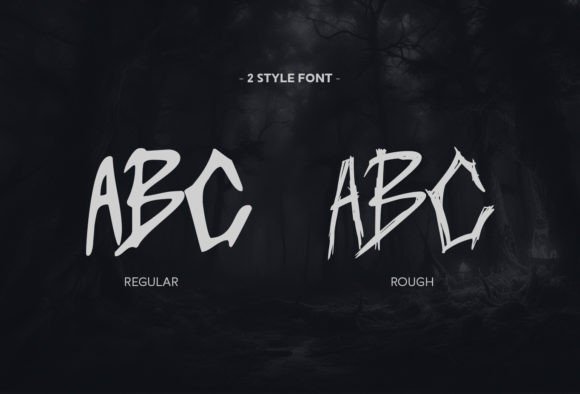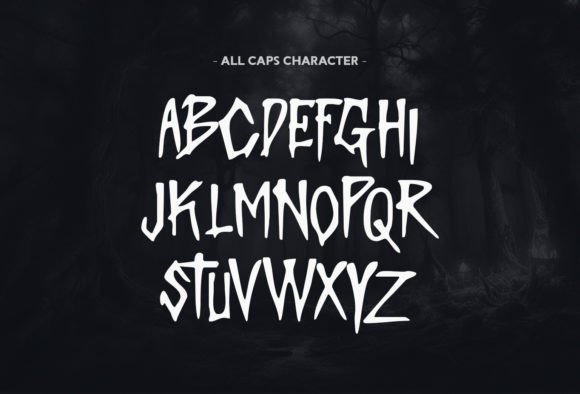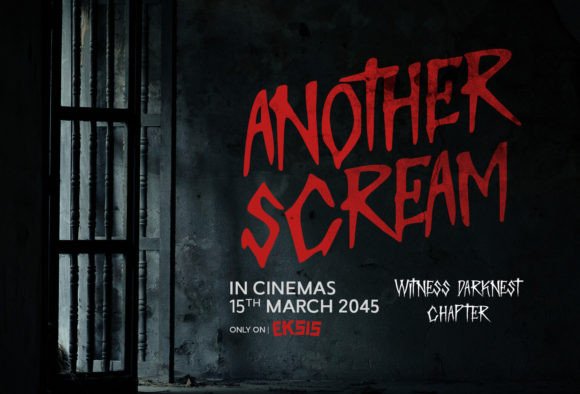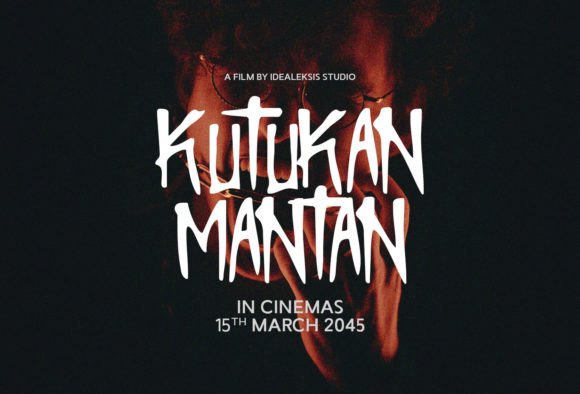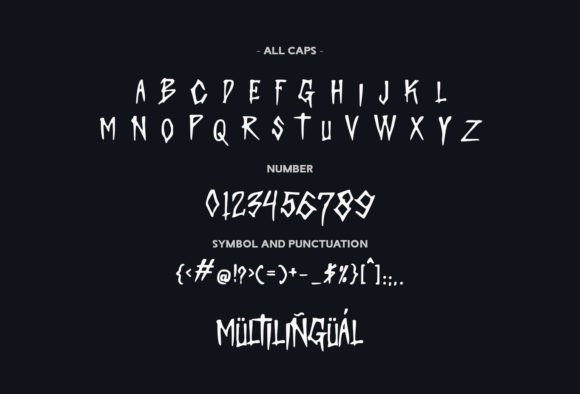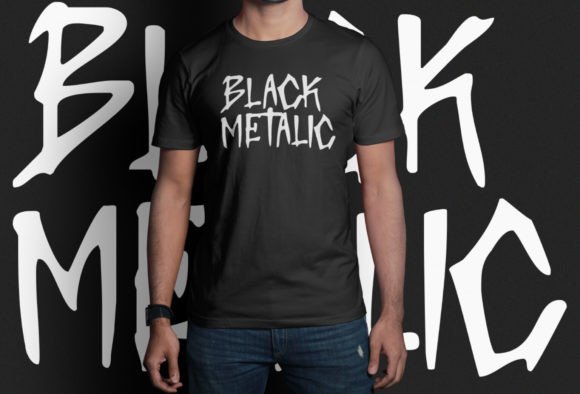
Crack Danger Font: Unleashing the Horror in Typography
In the realm of typography, few fonts manage to evoke the same level of fear and unease as the Crack Danger font. As the name suggests, this chilling typeface embodies an essence of horror and suspense in its design, making it a perfect choice for projects that seek to evoke a sense of darkness and foreboding.
The Design: A Masterclass in Fear
The Crack Danger font is meticulously crafted with jagged edges, irregular strokes, and unsettling angles, contributing to an overall feeling of unease. Each letter is carefully designed to appear as if it’s been ravaged by some unseen force, leaving it looking broken and menacing. The font’s distressed texture adds to its eerie appeal, giving it a worn, vintage look that’s both captivating and terrifying.
Perfect for Horror and Suspense Projects
The Crack Danger font is an excellent choice for designers and crafters working on projects that require a sense of horror and suspense. Whether you’re creating a movie poster, a book cover, or a video game title, this font is sure to grab the attention of your audience and draw them in. Its unique design makes it perfect for:
- Movie and TV show posters
- Book covers and e-book designs
- Video game titles and logos
- Horror-themed event promotions
- Creepy crafts and DIY projects
Tips for Using Crack Danger Font
While the Crack Danger font is a powerful tool for evoking fear and suspense, it can be challenging to use effectively. Here are some tips to help you get the most out of this font:
- Use it sparingly: Due to its distressed texture and jagged edges, the Crack Danger font can be overwhelming if overused. Limit its use to headings and titles to create a lasting impact.
- Pair it with contrasting fonts: Combine the Crack Danger font with cleaner, more traditional fonts to create a striking contrast that adds to its eerie appeal.
- Experiment with colors: The Crack Danger font looks great in bold, dark colors, but don’t be afraid to experiment with other hues to create a unique look that suits your project.
What Makes Crack Danger Font Stand Out
In a sea of fonts, the Crack Danger font stands out for its unique blend of horror and suspense. Here are some key features that make it a standout:
- Distressed texture: The font’s worn, vintage look adds to its eerie appeal.
- Jagged edges: The irregular strokes and jagged edges create a sense of unease and fear.
- Unsettling angles: The font’s unusual angles and slants add to its sense of foreboding.
The Crack Danger font is a powerful tool for designers and crafters looking to evoke a sense of horror and suspense in their projects. Its unique design, distressed texture, and jagged edges make it perfect for a range of applications, from movie posters to creepy crafts. By using this font effectively, you can create a lasting impact on your audience and leave them with a sense of unease that’s sure to linger.